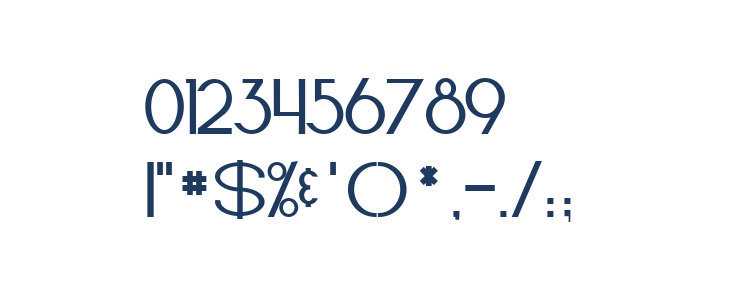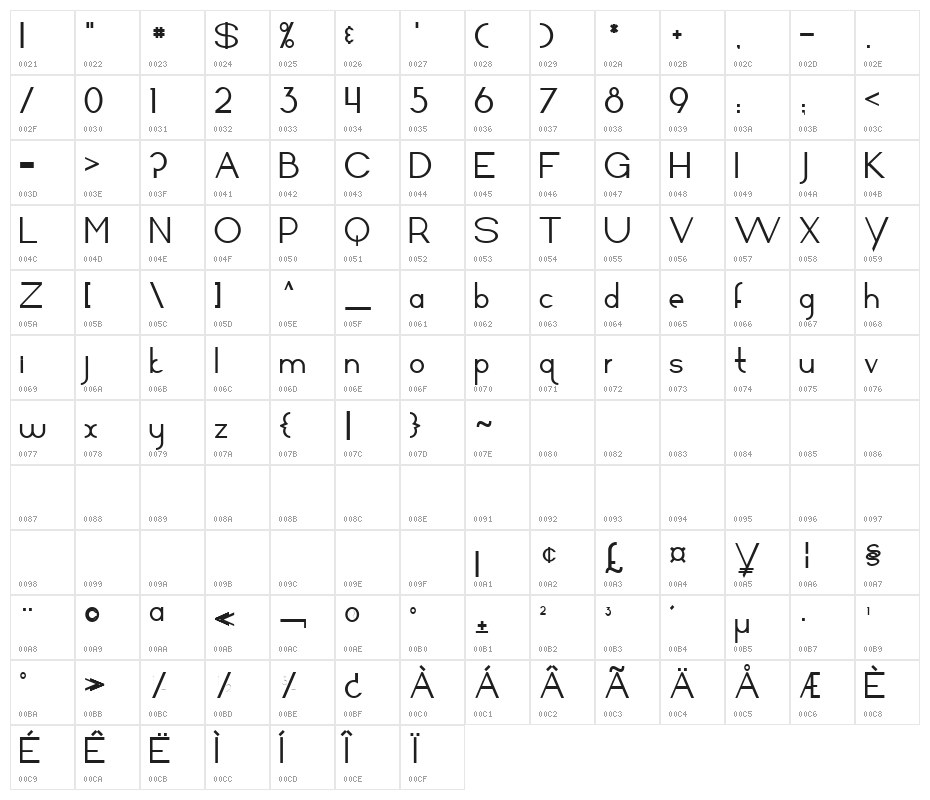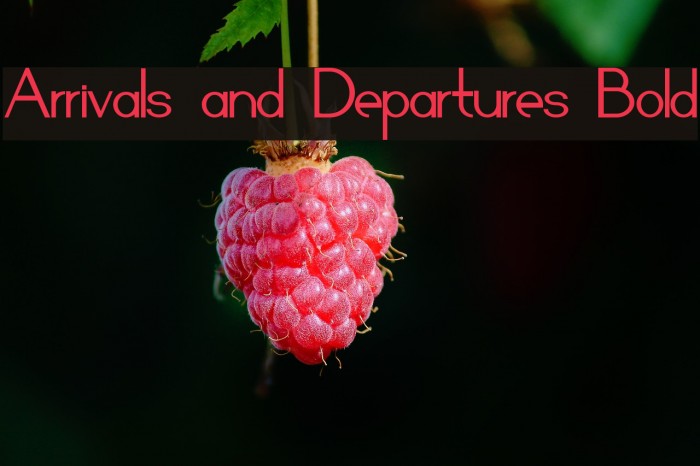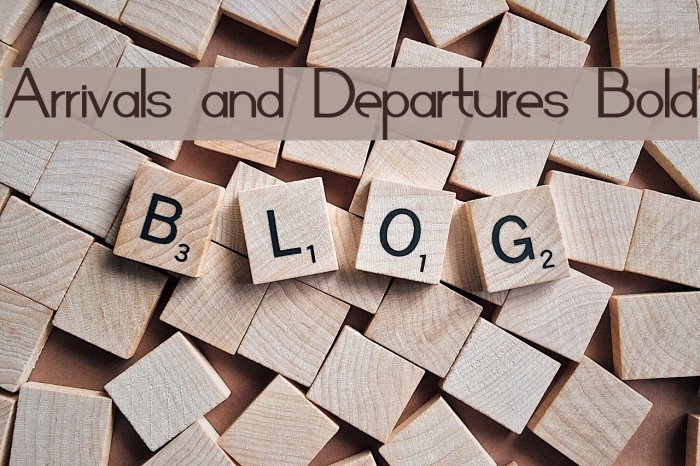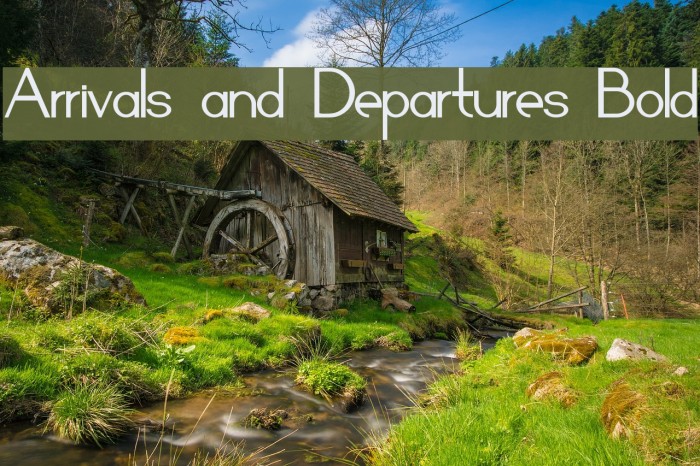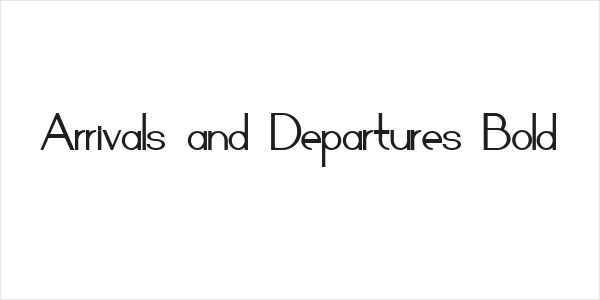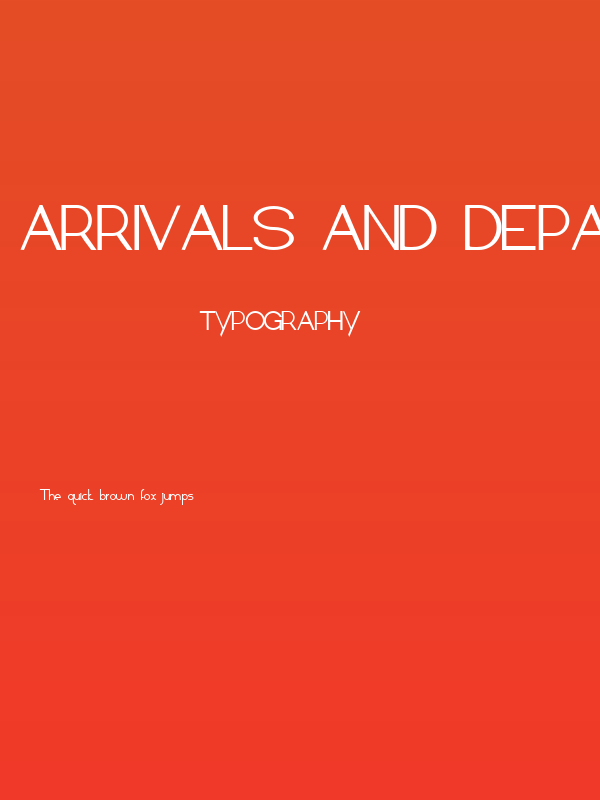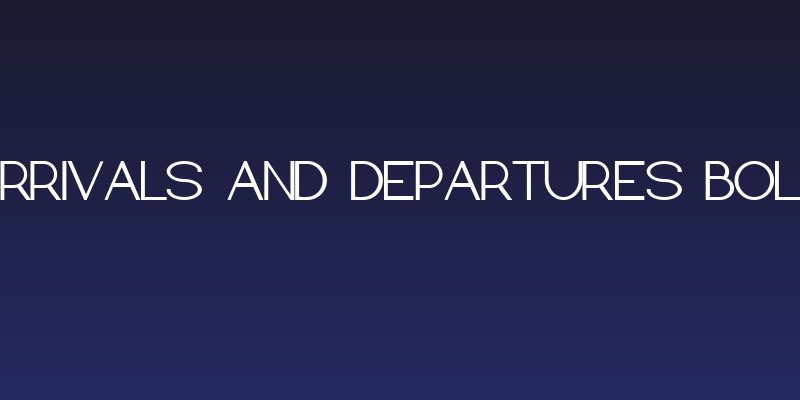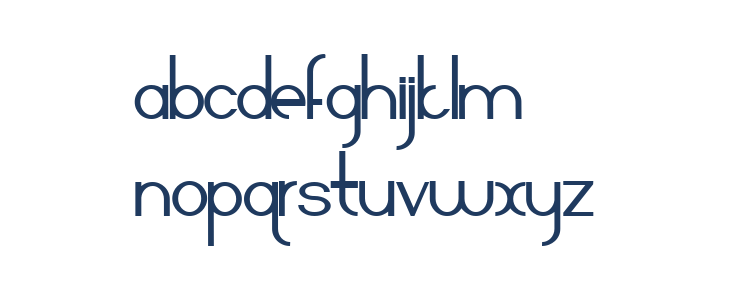
Arrivals and Departures Bold Font
Arrivals and Departures Bold Description
This font features a modern, geometric design with clean lines and a bold presence. The characters are constructed with a consistent stroke width, giving it a uniform appearance. The uppercase letters are particularly striking, with a distinctive style that combines both sharp and rounded elements. The lowercase letters maintain the geometric theme, offering a harmonious balance with the uppercase set. Numbers and special characters are designed to match the overall aesthetic, ensuring a cohesive look across all text. The font's style is both contemporary and versatile, making it suitable for a variety of design applications.
| Proposed Projects | Ideal for branding, headlines, posters, and modern web design projects. |